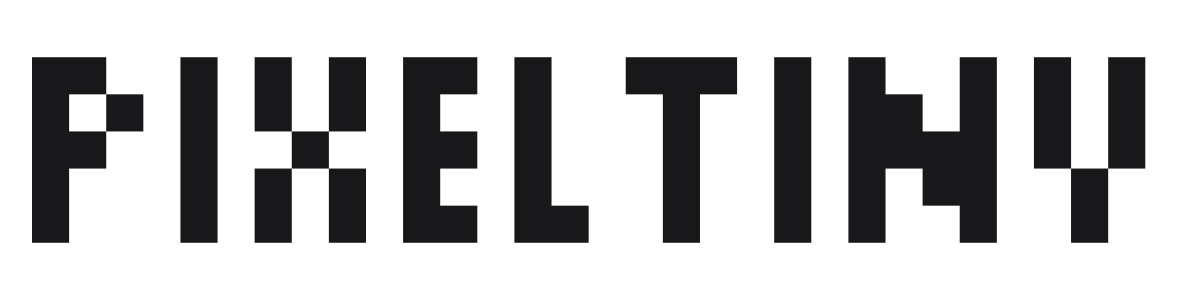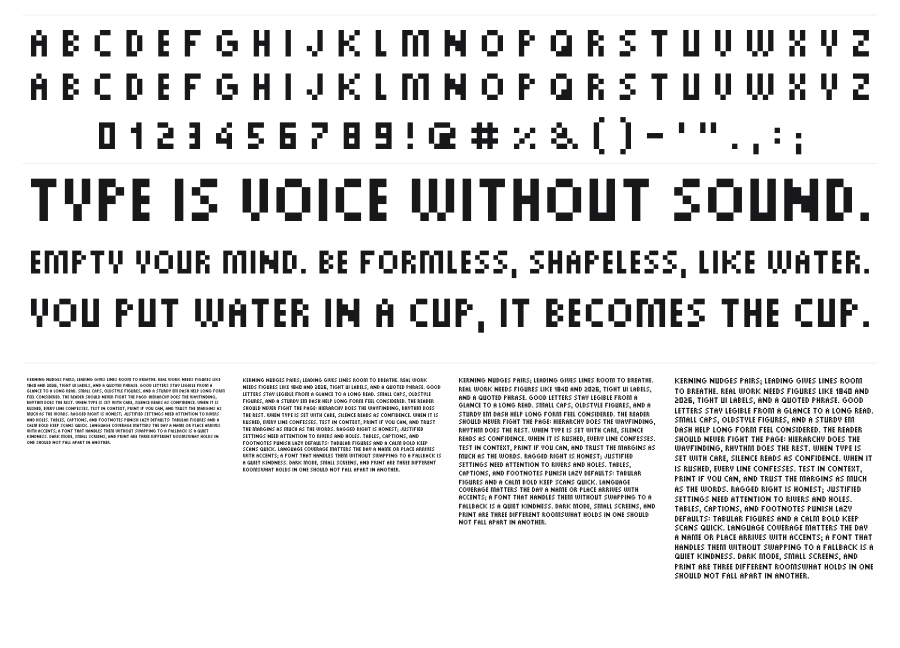
PixelTiny
by David D.
PixelTiny is a minimal bitmap font built on the smallest possible pixel grid, with bold square characters that recall early computer displays and handheld hardware. Every letter is constructed entirely from square pixel blocks, with no curves and no stroke variation. It includes German umlauts and special characters, making it more useful than its tiny footprint suggests.